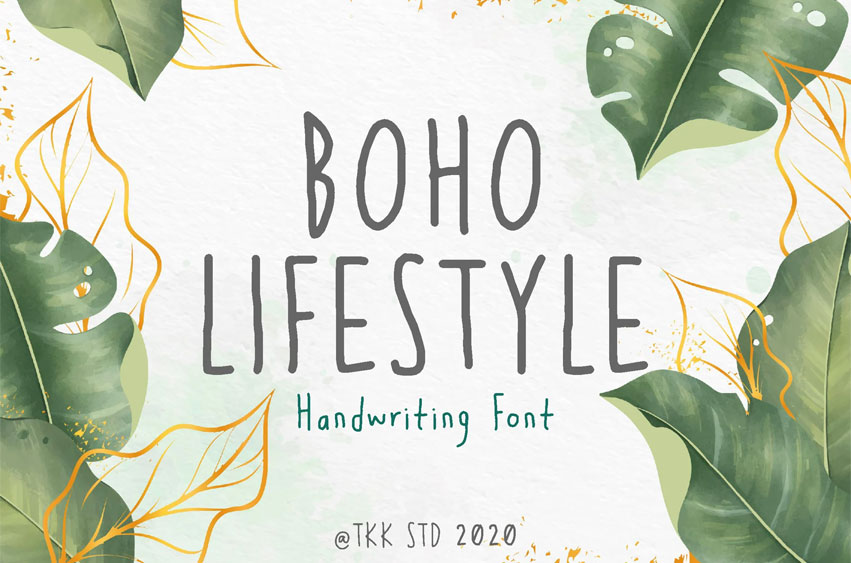
Boho Lifestyle Font
Boho Lifestyle Font Natural script with soulful style for branding, invites & decor themes. Boho Lifestyle is a handwritten display font with a natural rhythm and botanical essence, perfect for creatives seeking a balance between earthy aesthetics and readable structure. With bouncy baseline characters, soft stems, and organic proportions, this font evokes calm, expressive energy ideal for mood boards, lifestyle branding, and anything with a relaxed, indie flair. Its casual handwriting vibe mirrors the fluidity of nature while maintaining clean legibility for versatile use.
Whether you’re designing a bride’s boho wedding invite, curating home decor labels, or crafting a relaxed Instagram quote, Boho Lifestyle offers a humanized tone that visually whispers softness and intentional design. Its charm lies in its emotional pull—inviting, free-spirited, and elegant, speaking directly to audiences who crave authenticity in every touchpoint. Perfect for branding, packaging, editorial headers, and stationery, this font breathes modern calm into every layout.
Key Features: Why Designers Love Boho Lifestyle: ✦ Soft, rounded strokes with natural unevenness ✦ Gentle bounce for expressive and dynamic flow ✦ Handwritten appeal without losing clarity ✦ Ideal for earthy, minimalist, or artisanal brand aesthetics ✦ Works across both print and digital platforms
Bring a soulful, handmade elegance to your next creative project. Whether you’re an illustrator, lifestyle brand owner, or a modern wedding designer—Boho Lifestyle is your go-to typeface for that earthy, thoughtful aesthetic. Download it now and start designing with intention.